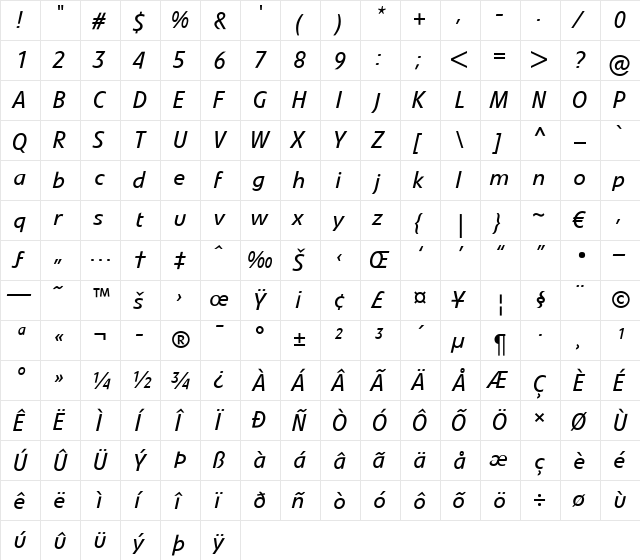
LTVeto Regular Italic
Italic ·  Marco Ganz ·
DesignerMarco Ganz
Design Context for LTVeto Regular Typeface
LTVeto Regular offers clean, dependable letterforms without strong stylistic allegiance, making it a practical choice for designers who need flexibility. Its italic angle brings a sense of urgency and motion to the letterforms.